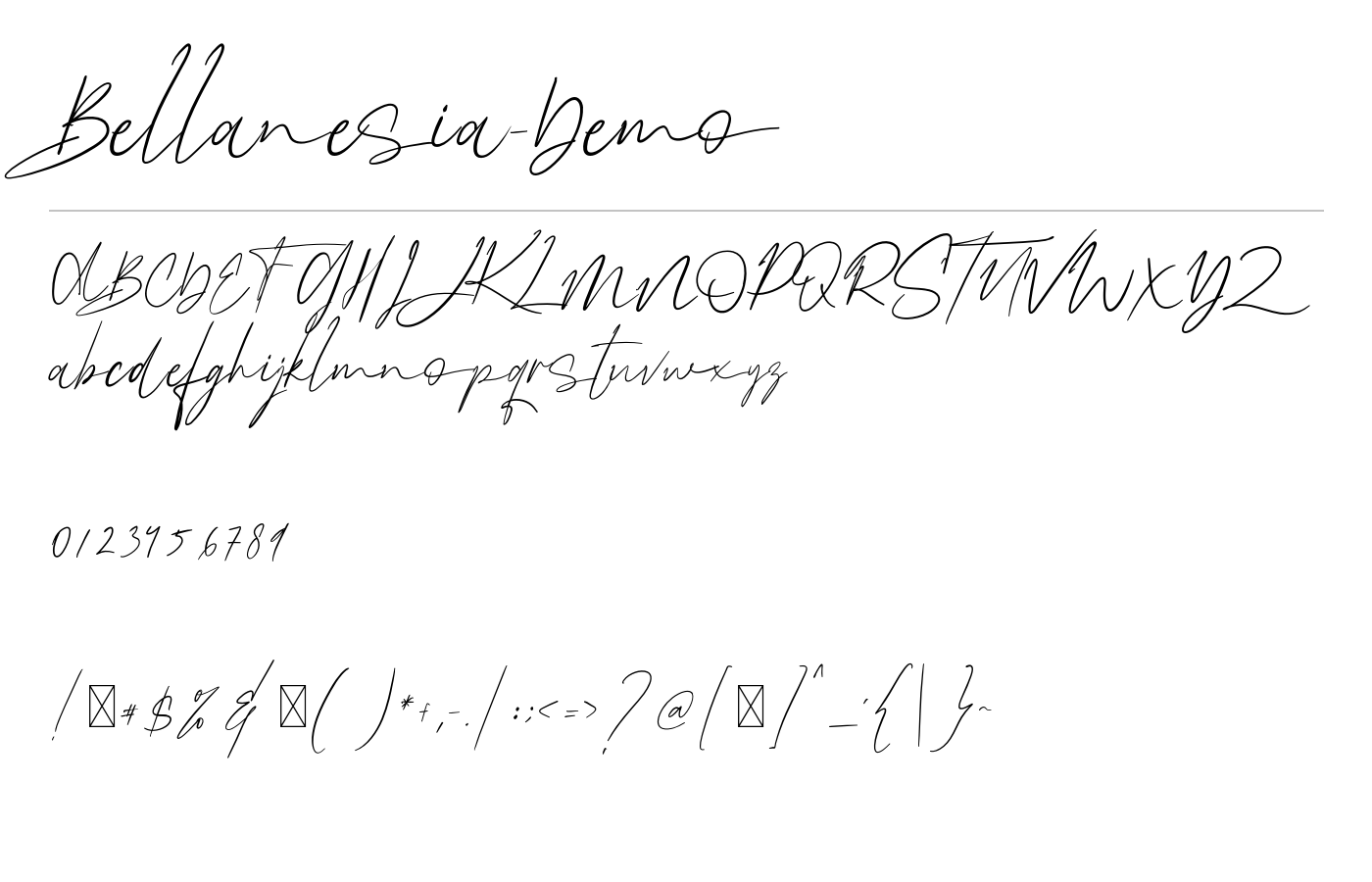
Bellanesia-Demo is a delicate, elegant script font characterized by its thin, flowing strokes and natural, handwritten style. It has a light, airy feel with distinctive tall, slender letterforms that offer a charming, personal touch, making it ideal for invitations, branding, and creative projects seeking a graceful, sophisticated vibe. This font works best in designs that benefit from a refined, intimate, and artistic look.
Bellanesia-Demo Font
About Bellanesia-Demo Font
| Font family | Bellanesia-Demo Font |